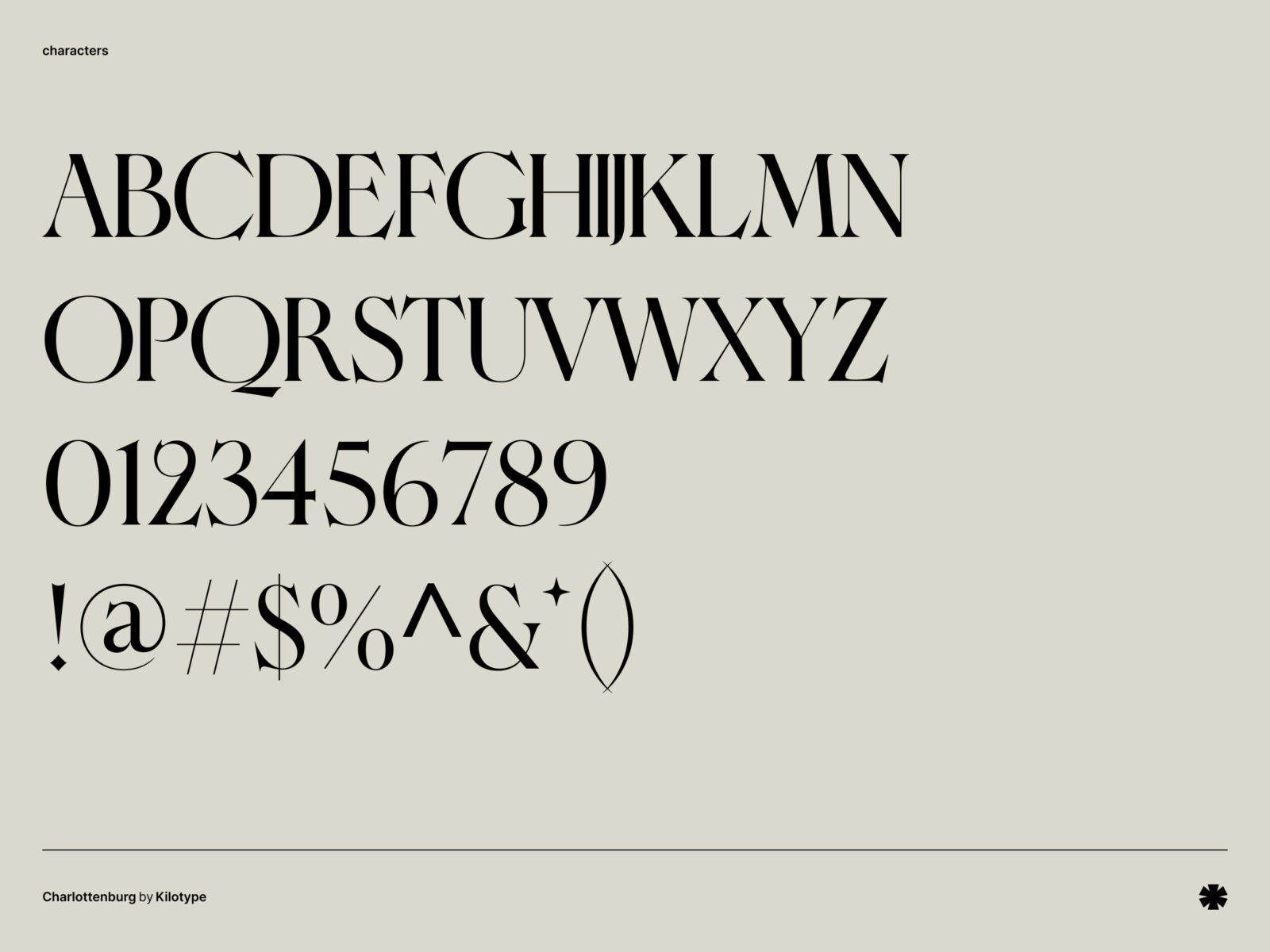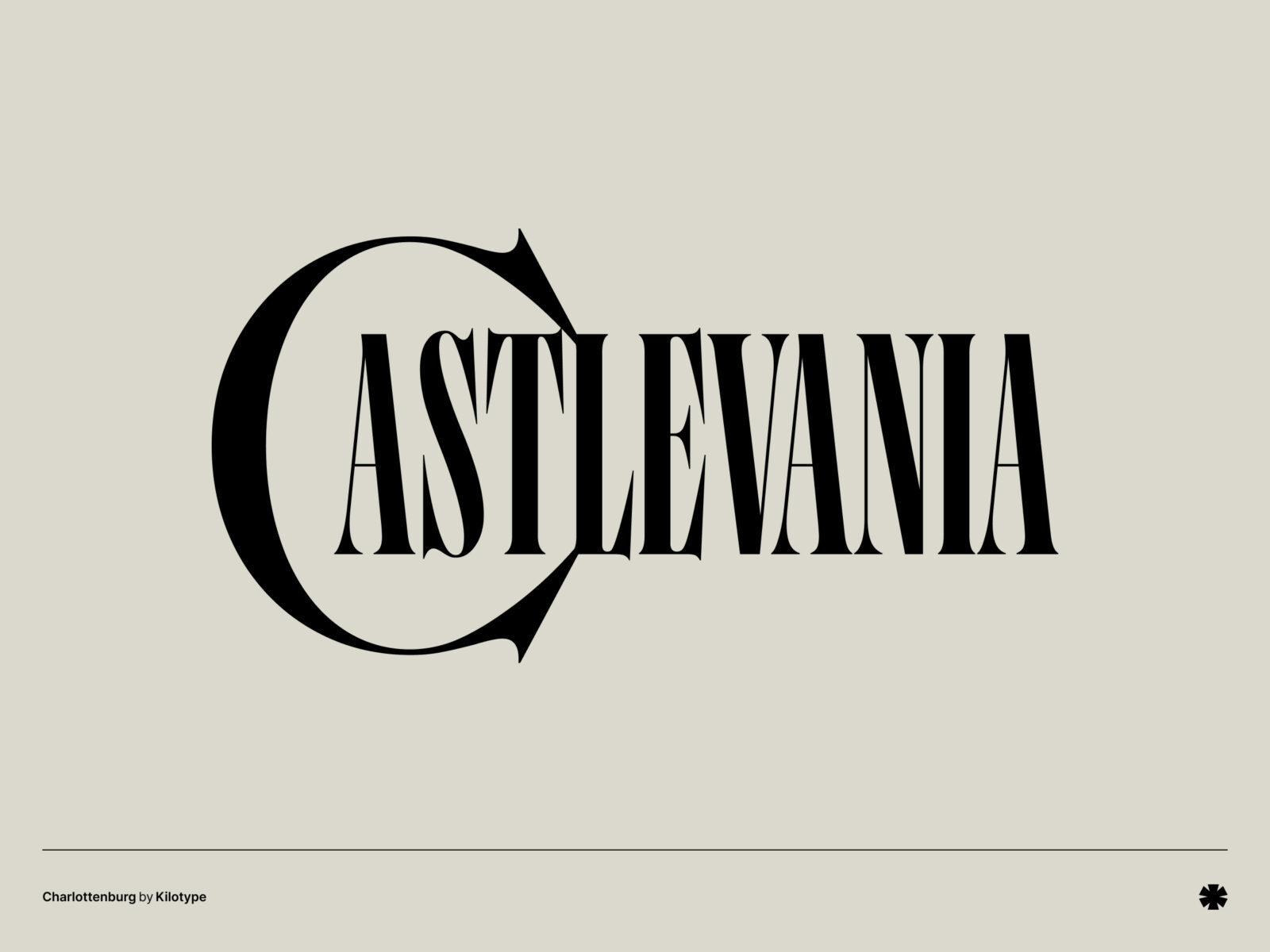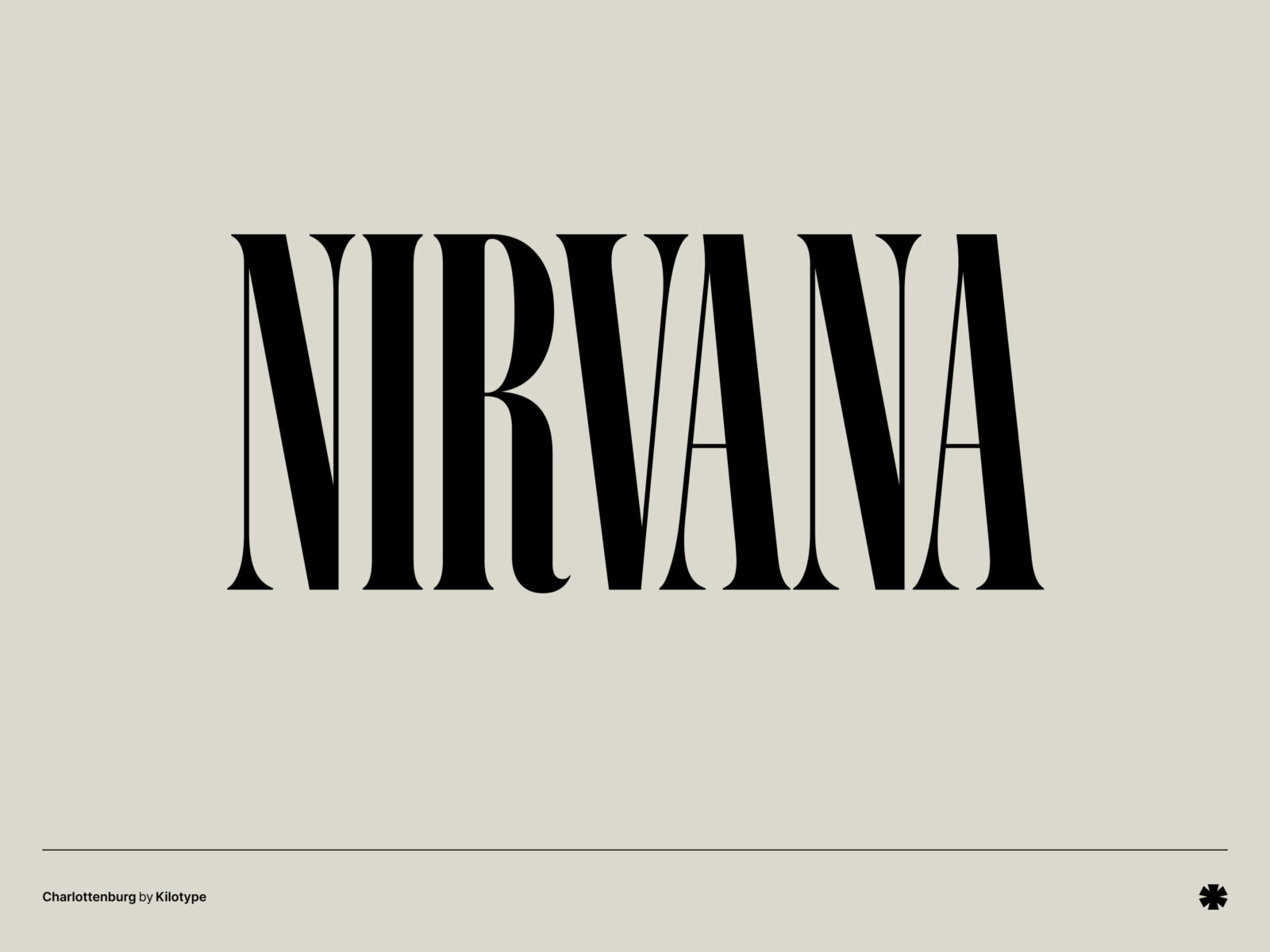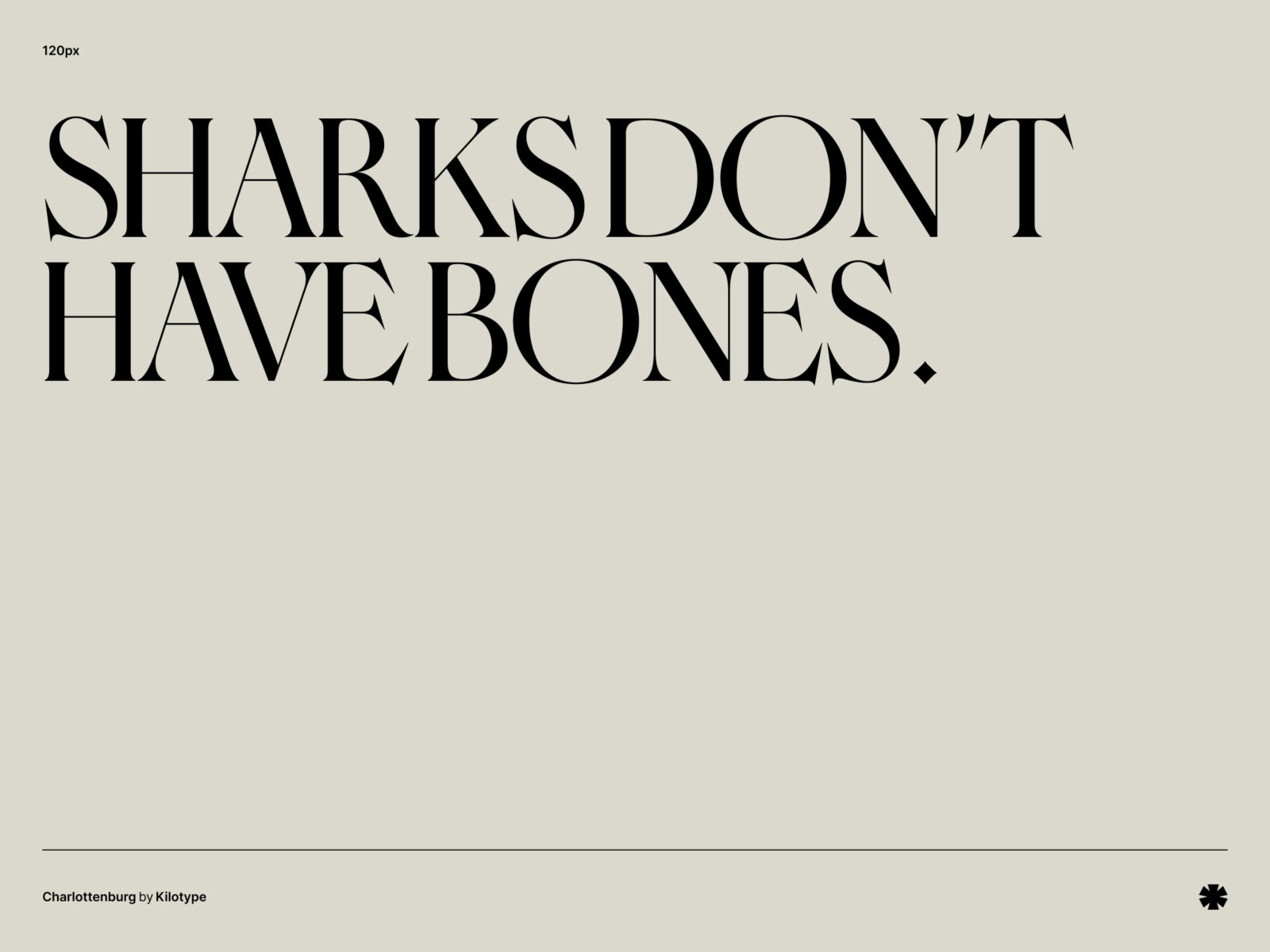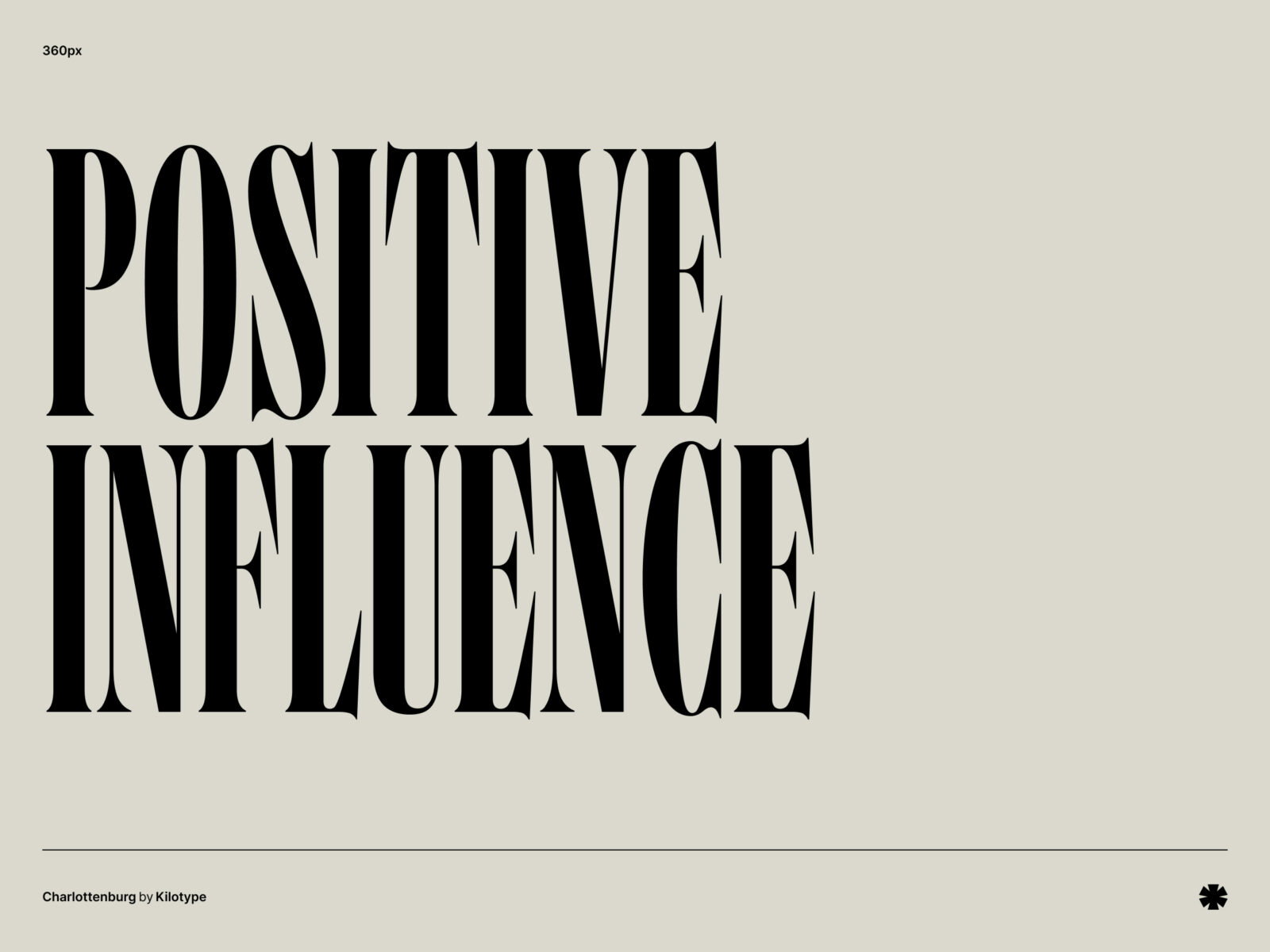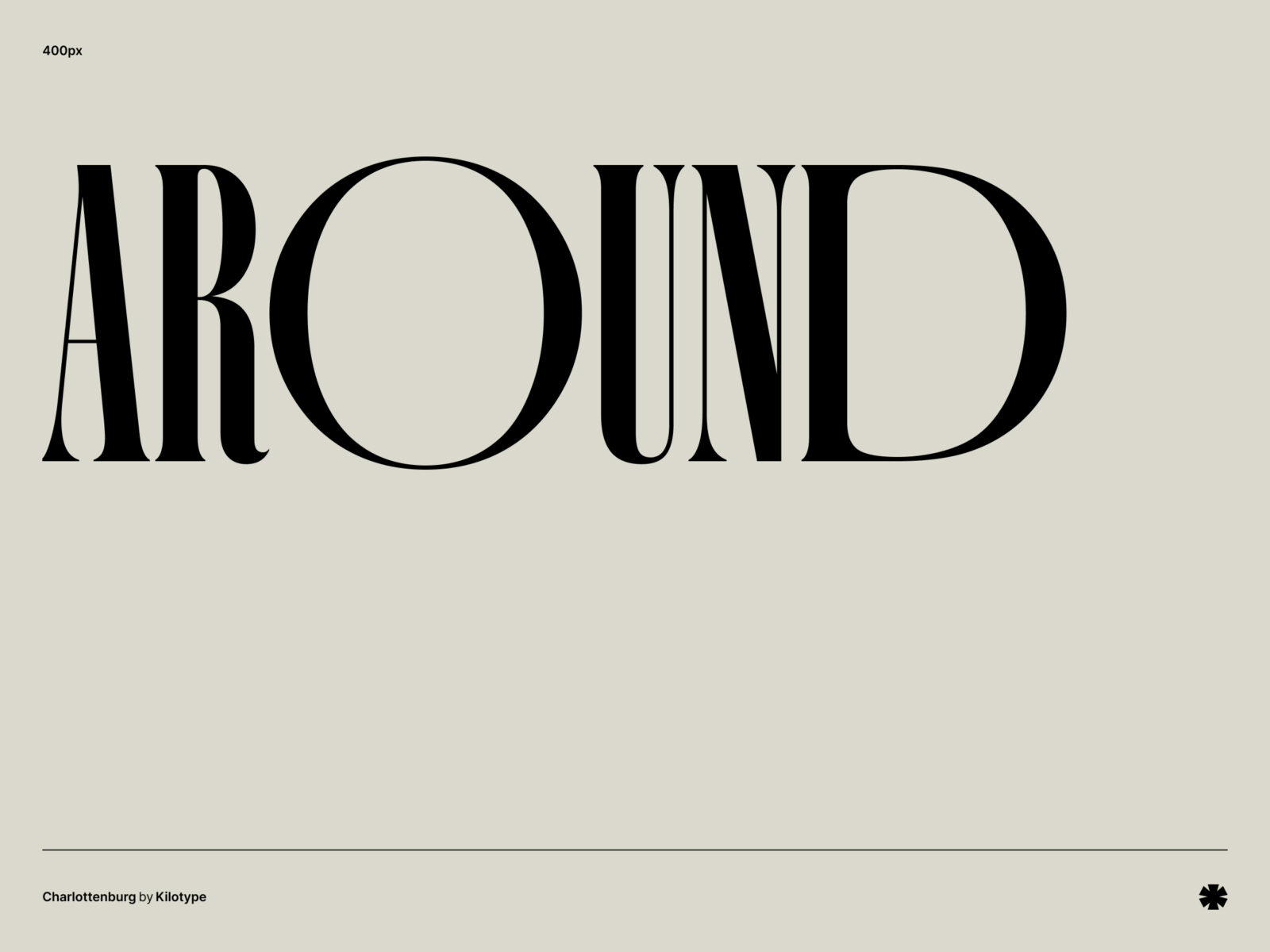
Charlottenburg is a bold, all-caps font with sharp contrasts, historical proportions and Art Nouveau influences. It's ideal for large, attention-grabbing designs.